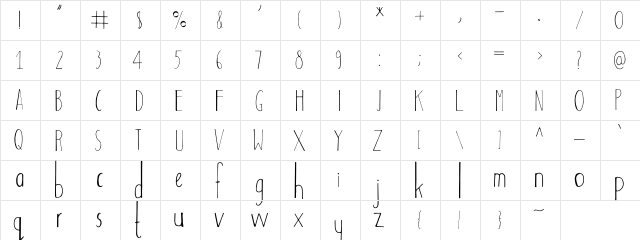
Adouliss Regular
| Designer | Ahsan |
Design Context for Adouliss Typeface
Adouliss is a composed and adaptable typeface that performs quietly and consistently across a wide range of design contexts.